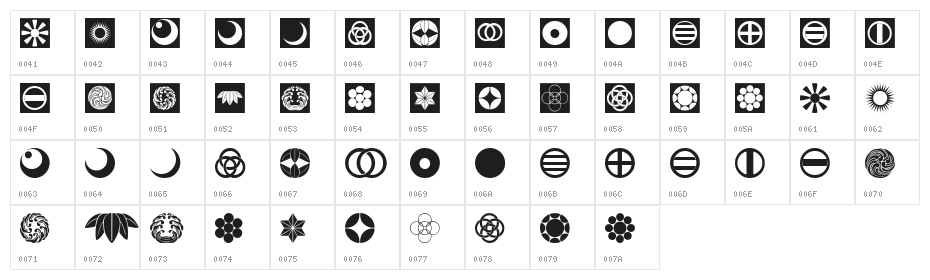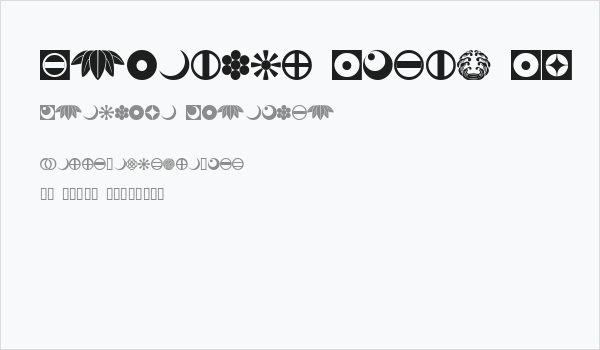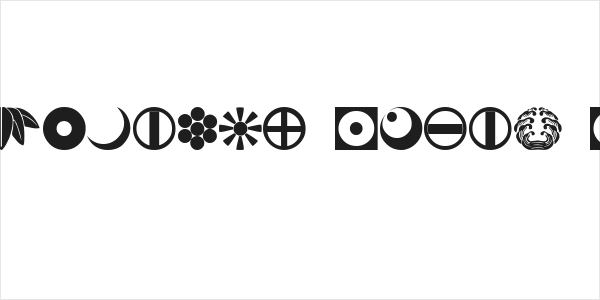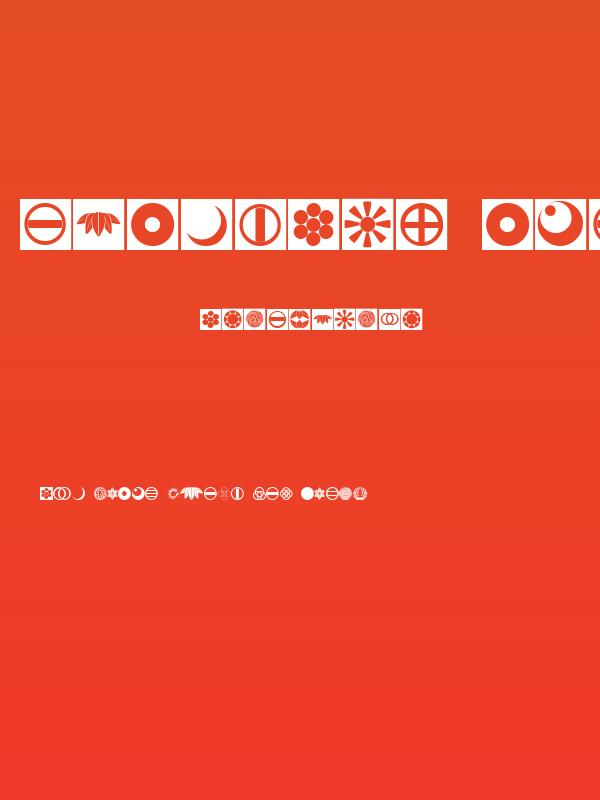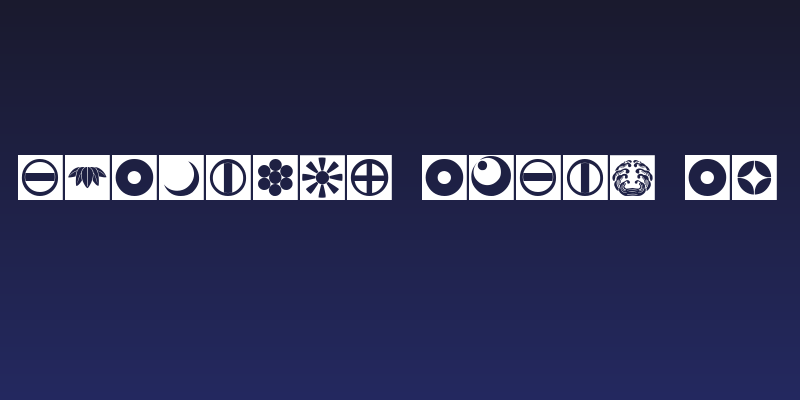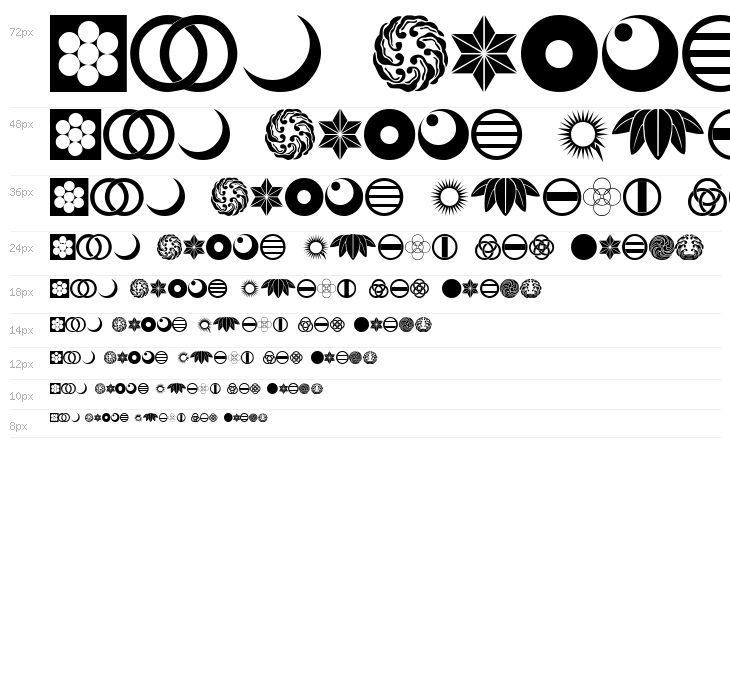
Oriental Icons IV Font
Oriental Icons IV Description
A decorative icon set featuring stylized, geometric, and floral motifs inspired by traditional East Asian symbols. The icons are bold, high-contrast, and primarily circular, with intricate line work and symmetrical patterns.
| Overall Style | Decorative, Ornamental, Cultural |
| Use Case | Logos, Icons, Decorative elements, Branding |
| Proposed Projects | Branding, packaging, invitations, textile design, digital stickers, decorative borders, cultural event materials. |